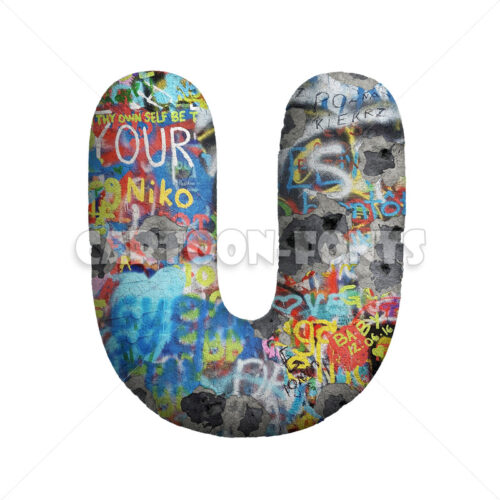
Graffiti letter T - lowercase 3d letter
Graffiti letter T
Graffiti letter T illustration against a white background.
This is the perfect image for creative projects linked to Youth culture, street or modern art thematics.